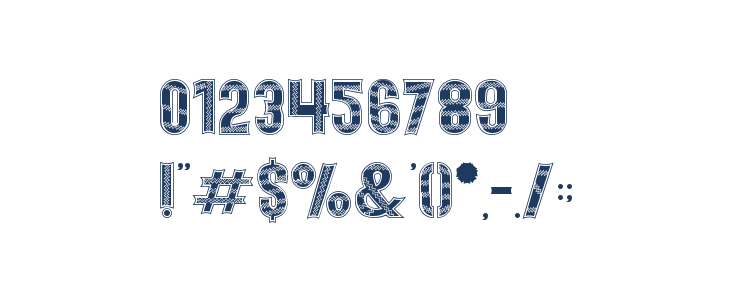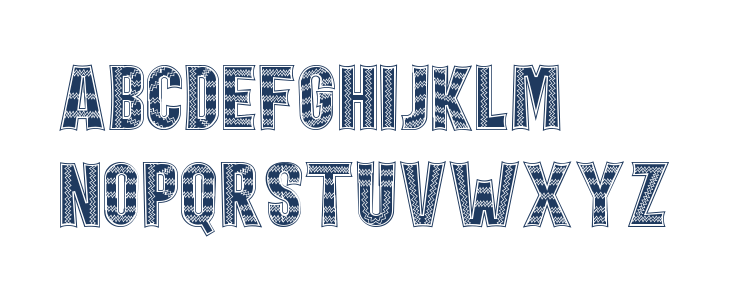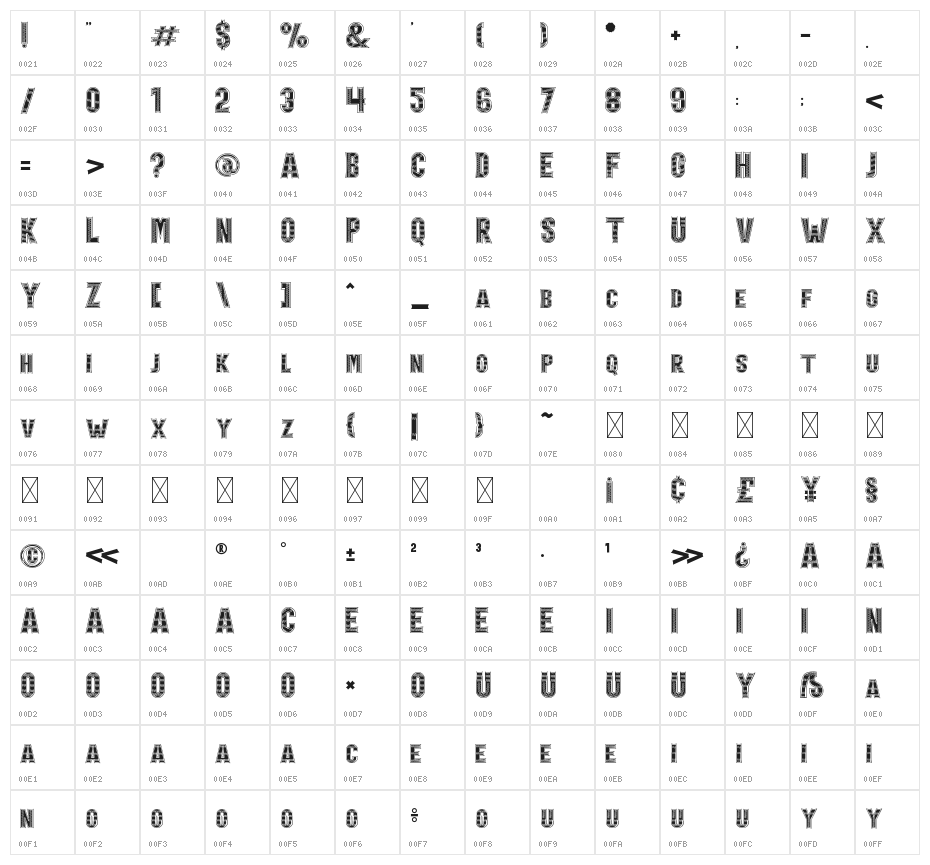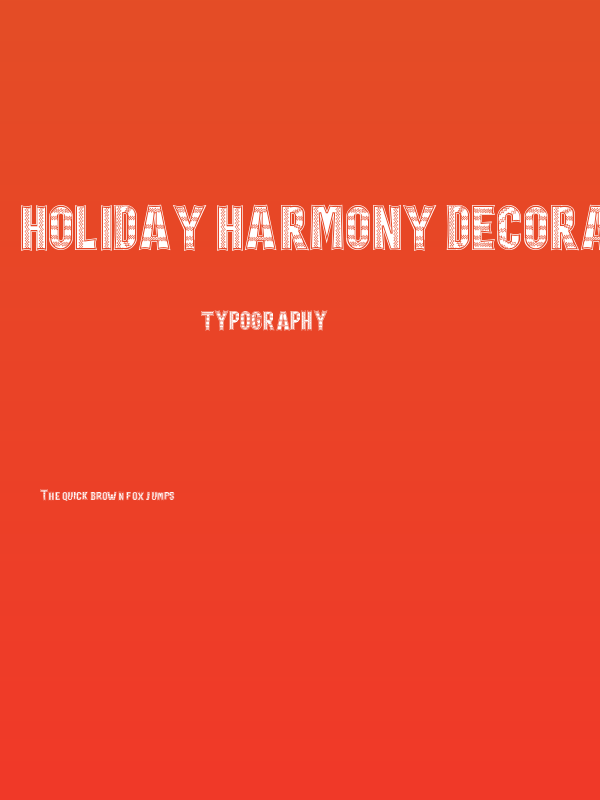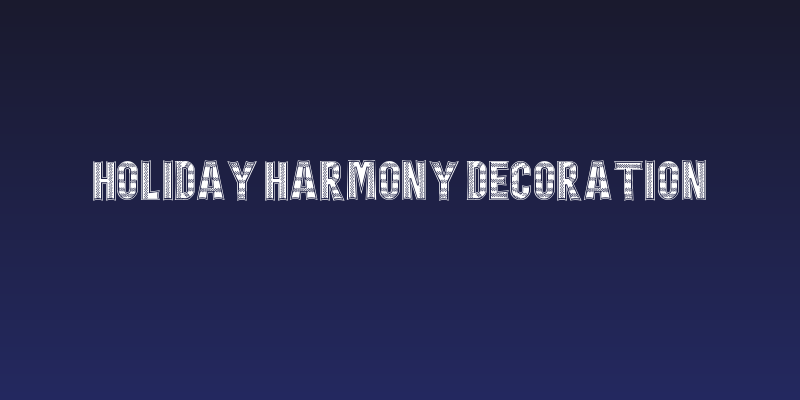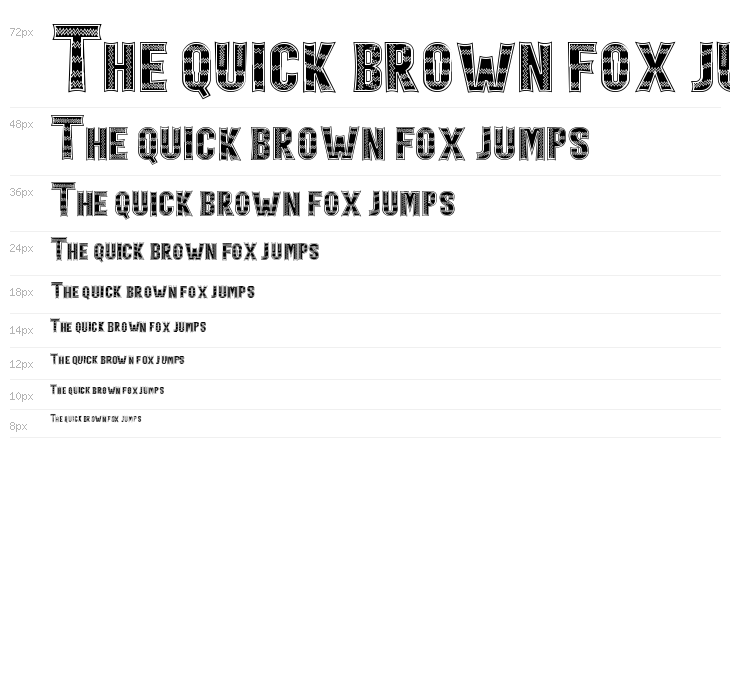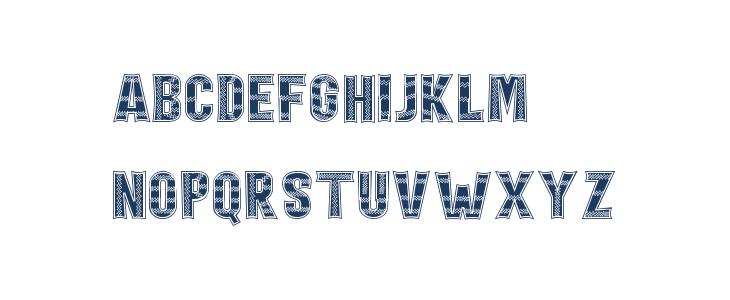
Holiday Harmony Decoration Font
Holiday Harmony Decoration Description
A bold, decorative display font featuring intricate, festive patterns within each character, evoking a holiday or winter sweater aesthetic. The letterforms are uppercase, blocky, and outlined, with detailed zigzags, dots, and lines filling the interiors.
| Overall Style | Decorative, Festive, Playful |
| Use Case | Headlines, Posters, Holiday-themed graphics, Event signage |
| Proposed Projects | Holiday cards, seasonal posters, event invitations, festive branding, decorative headlines. |